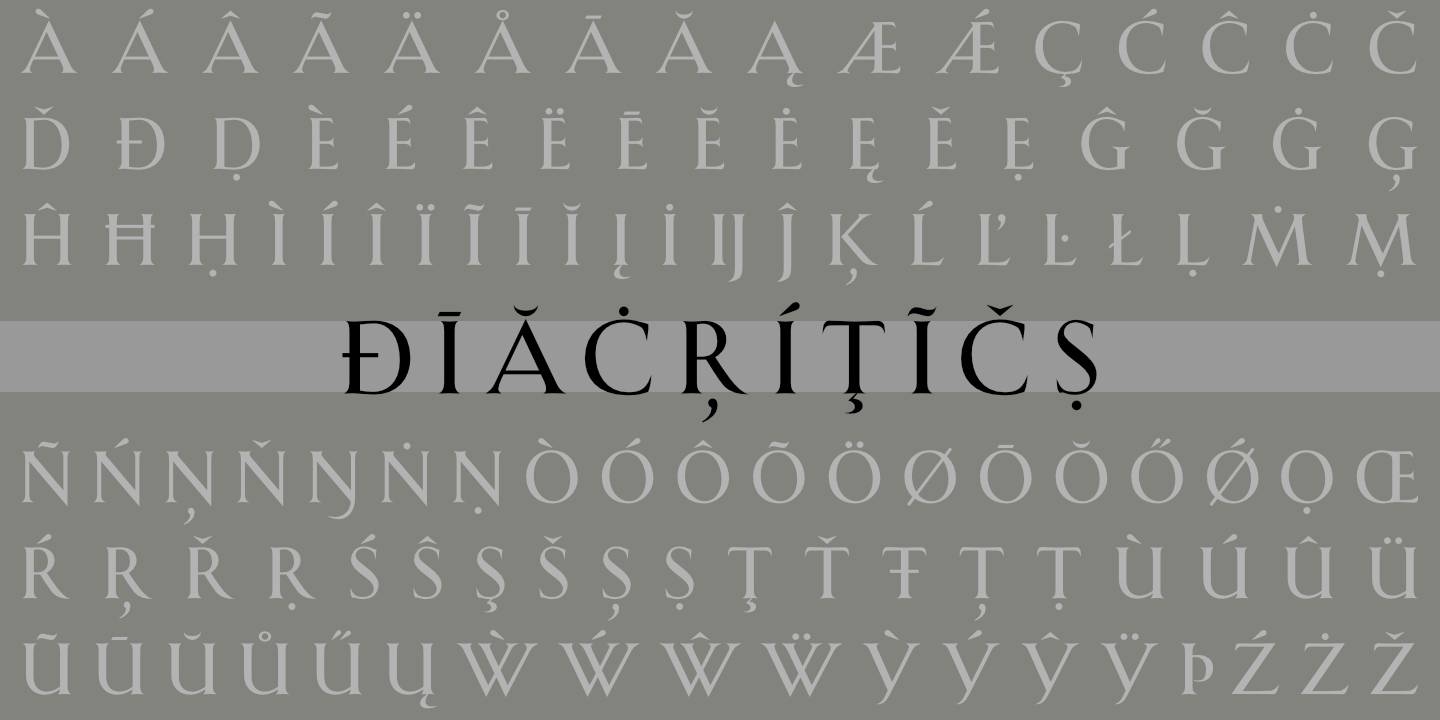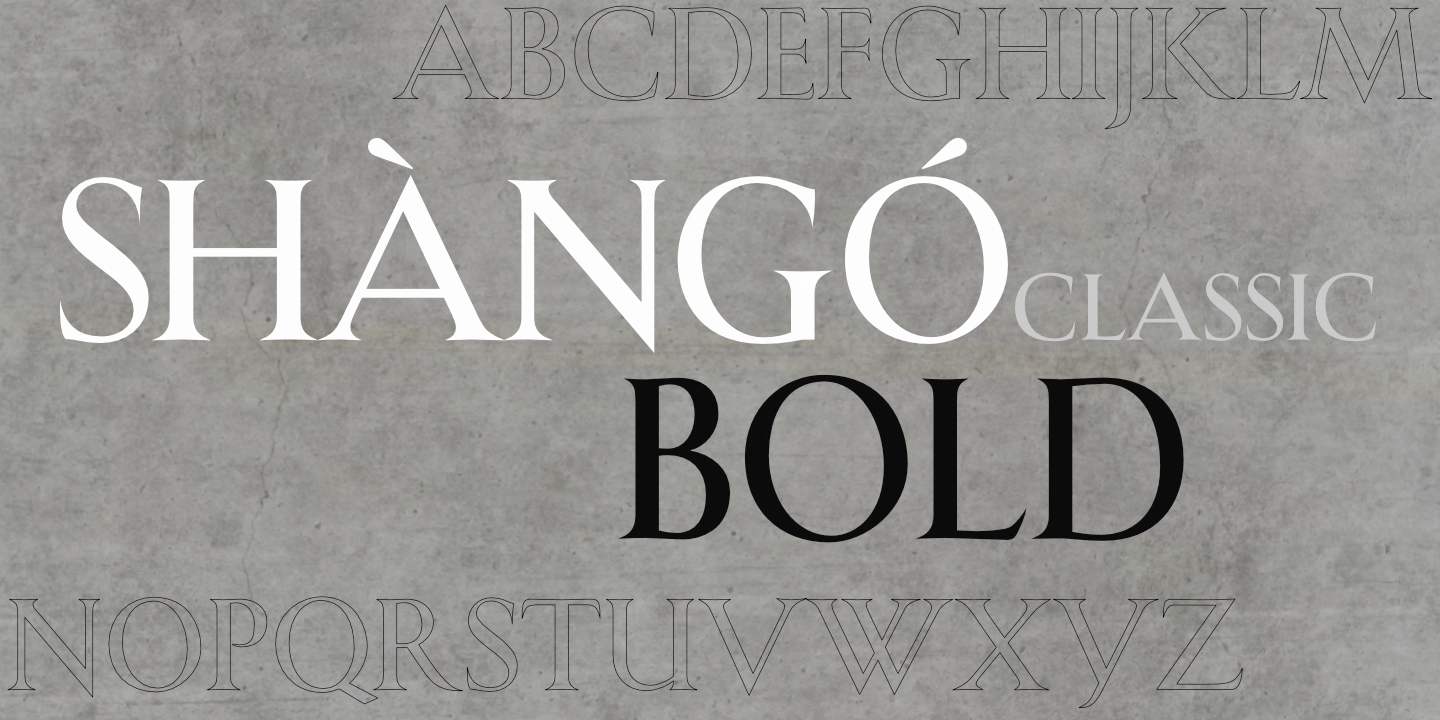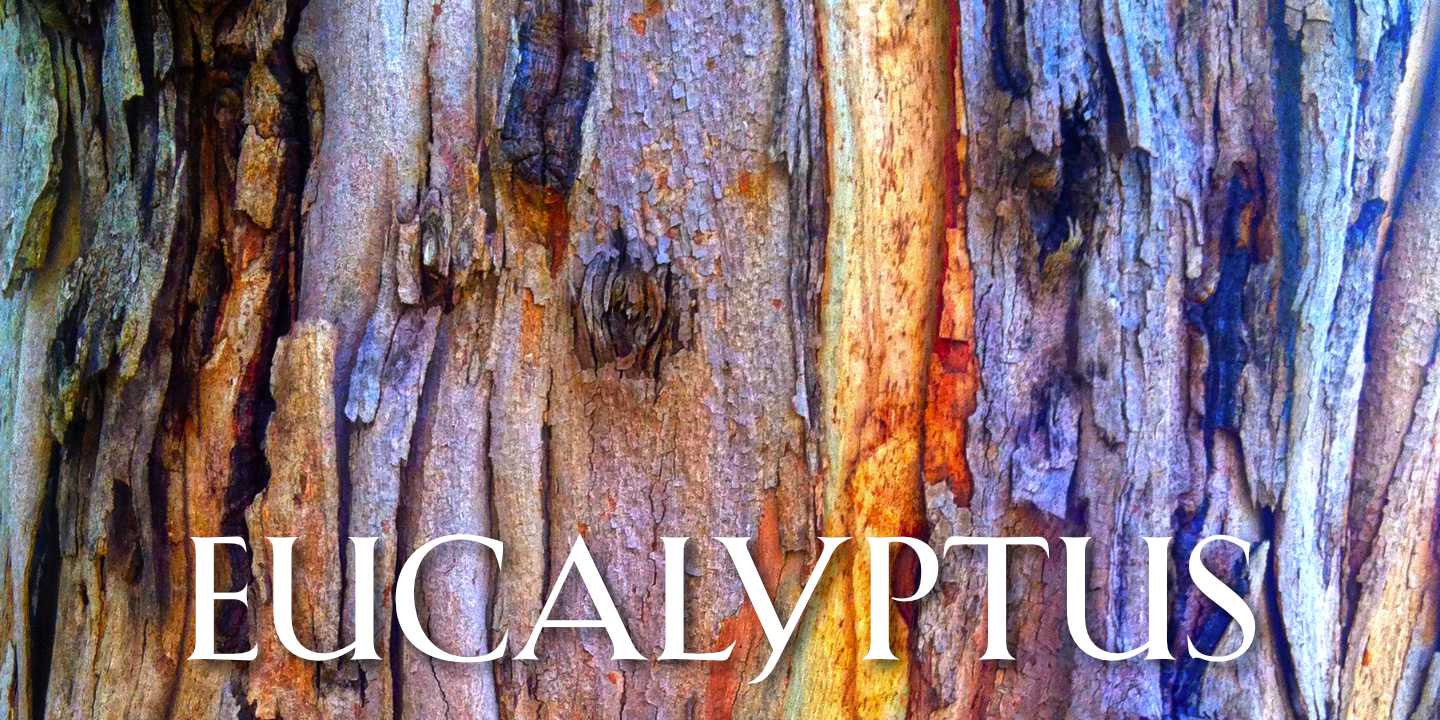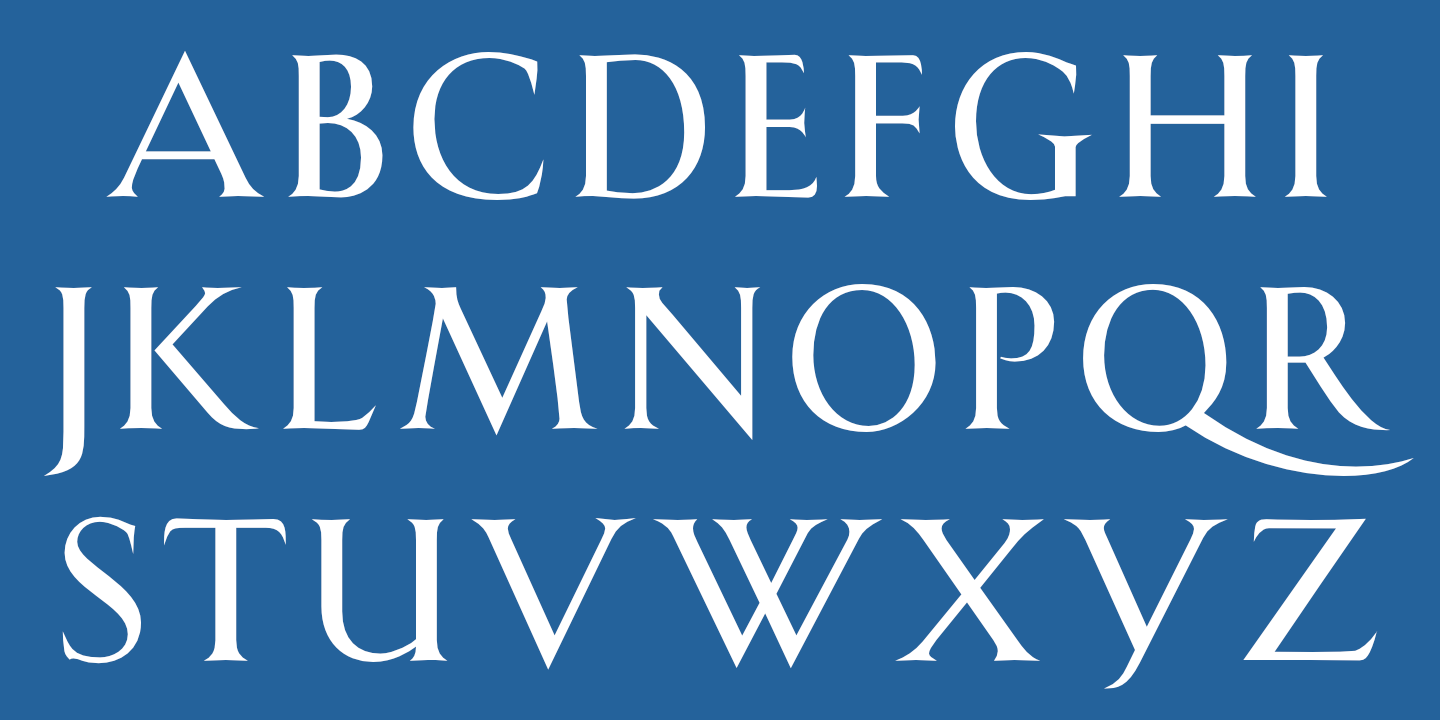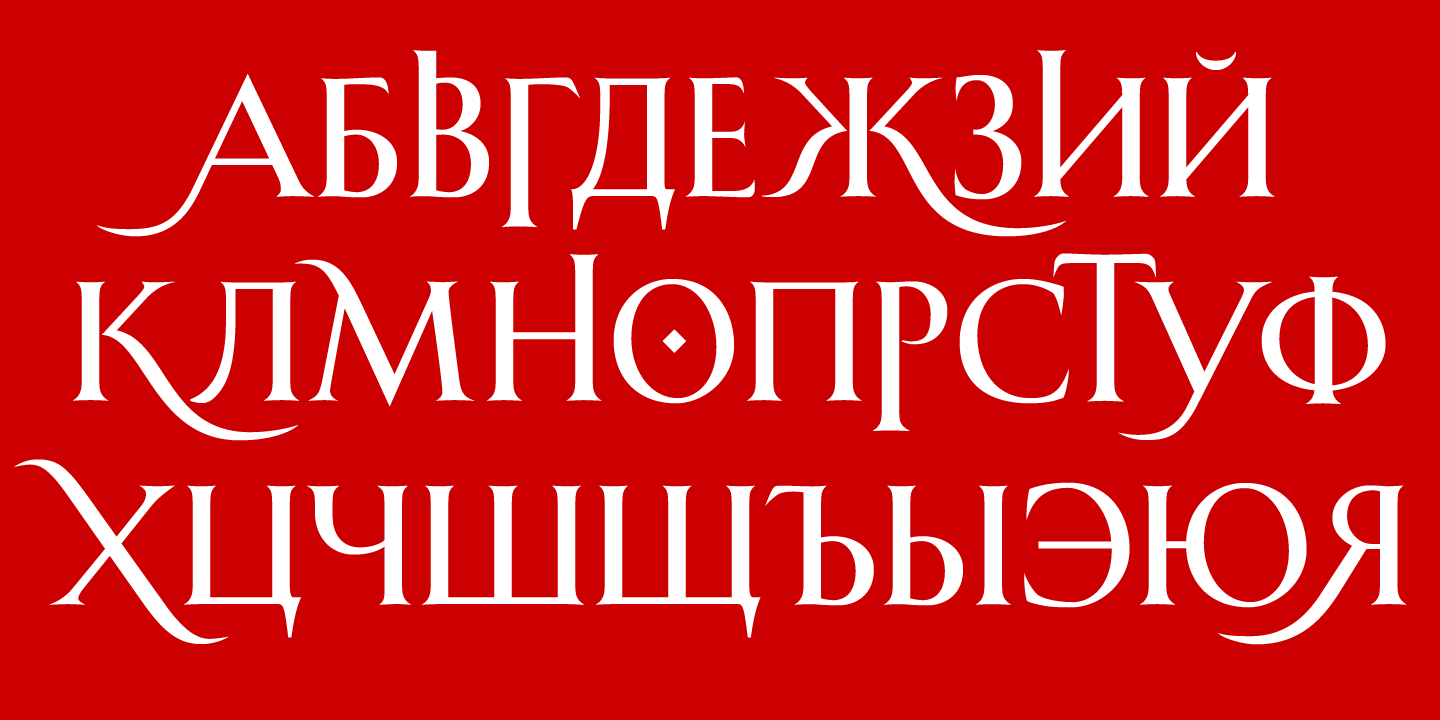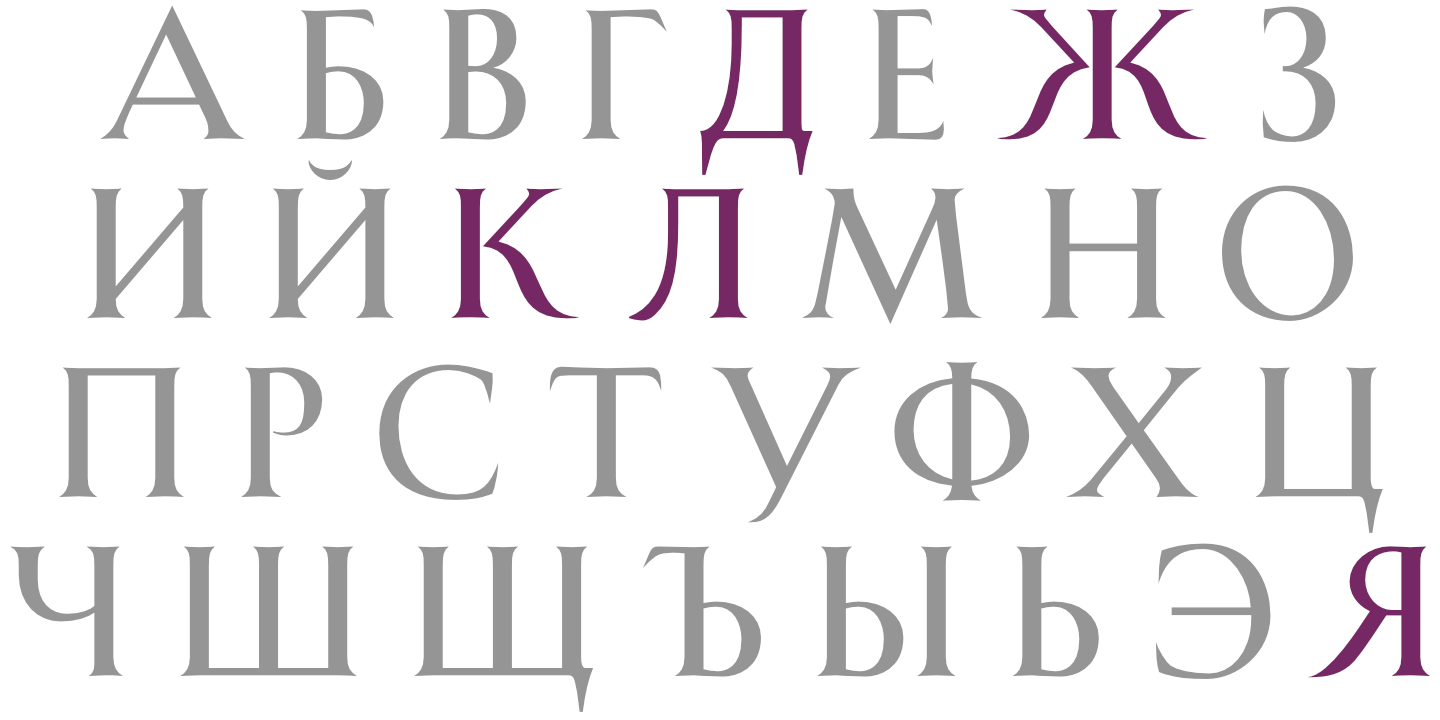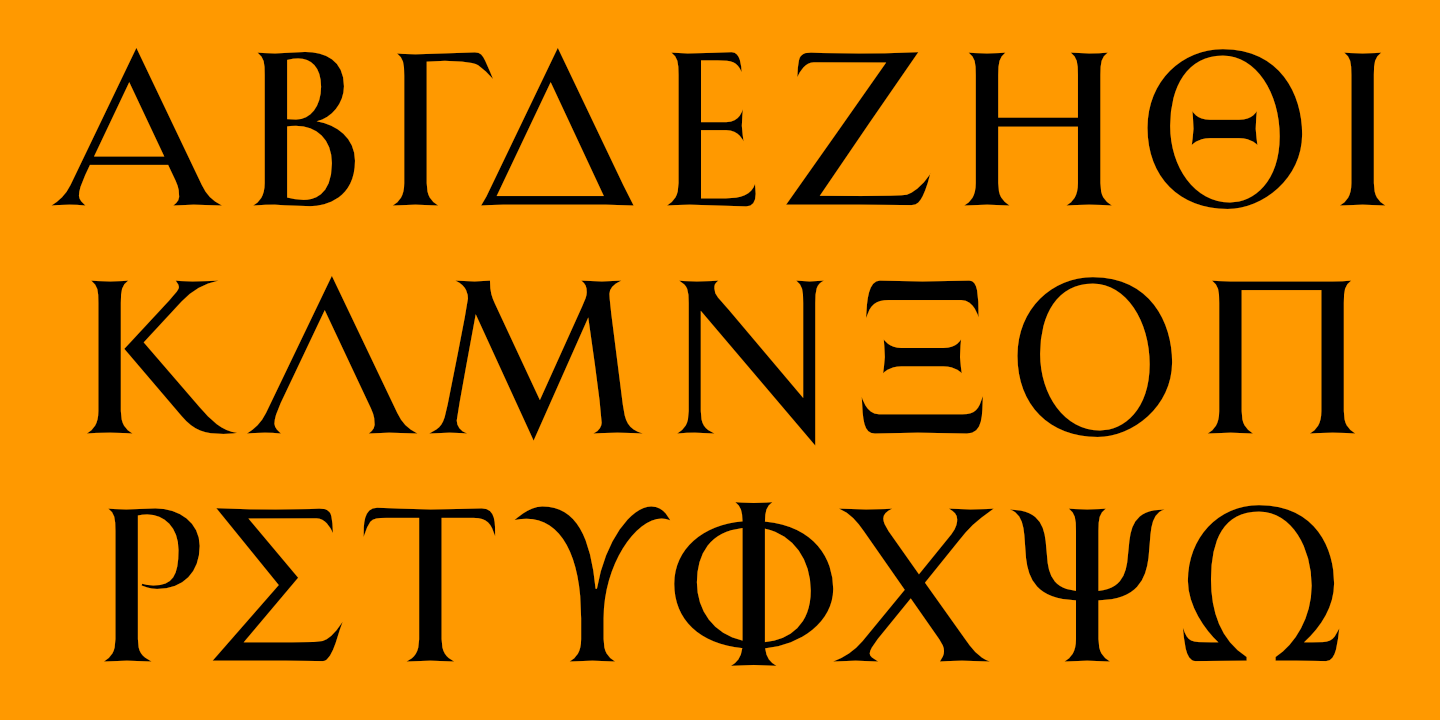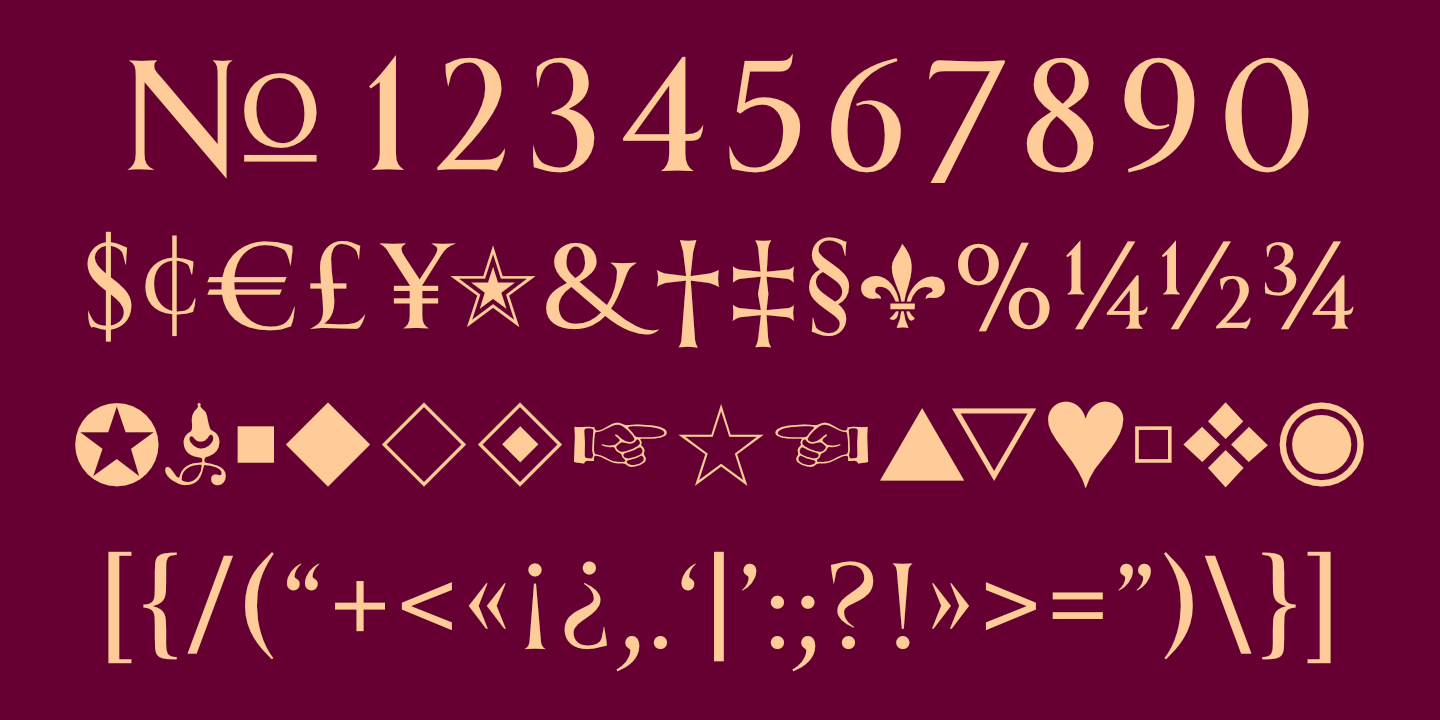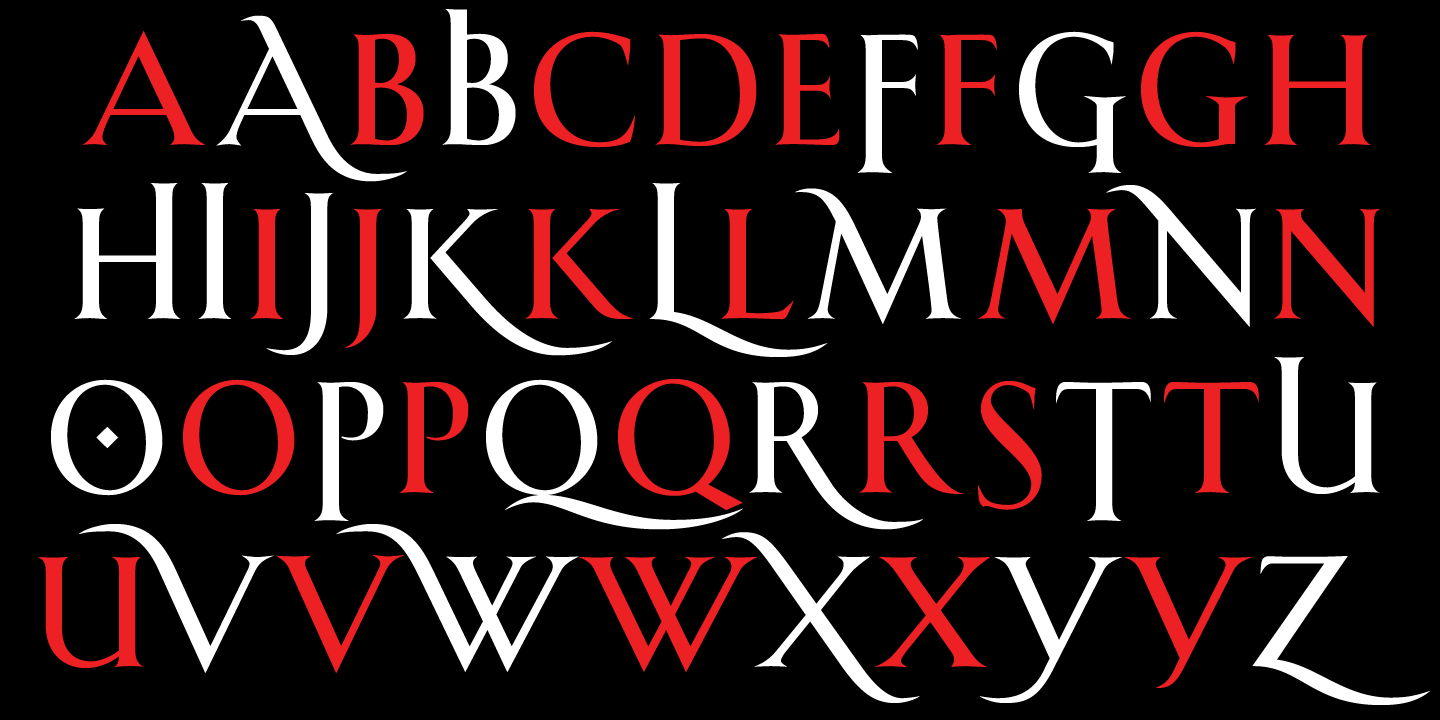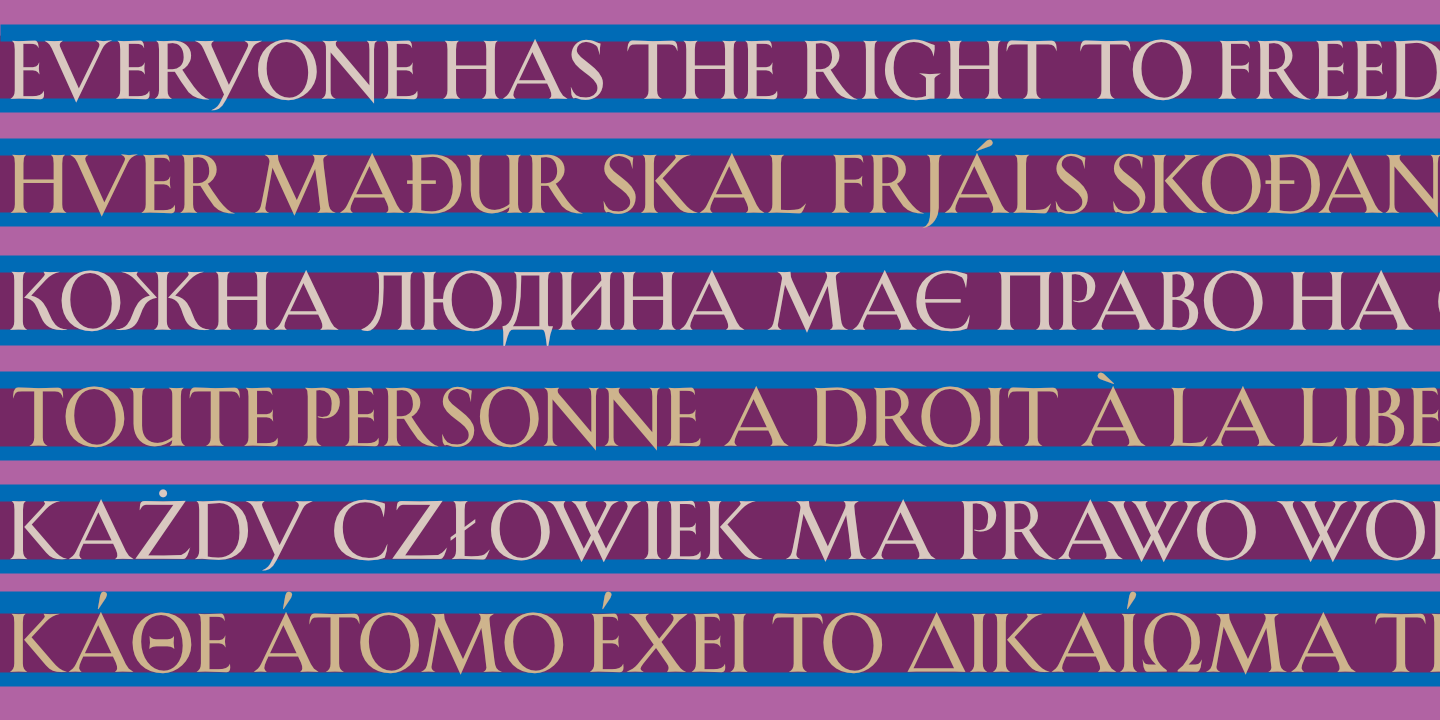
Shàngó Classic Bold: Basic Latin alphabet. See Glyphs for details.
Shàngó Classic Bold: Some of the swashes and alternates in Shàngó. Default caps in red. See Glyphs for details.
Shàngó Classic Bold: Cyrillic swash caps and other alternates. See Glyphs for details.
Shàngó Classic Bold supports modern Greek. Swash caps and alternates available in OpenType-savvy applications.
Shàngó Classic Bold: Numerals, basic punctuation, currency symbols, and a sampling of ornaments.
The Shàngó family includes four styles: Classic, Gothic, Sans, and Chiseled.
Shàngó Classic Bold supports most European languages, including modern Greek and Cyrillic-using languages.